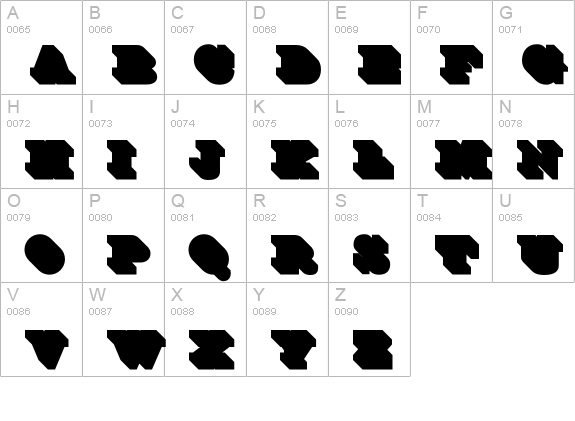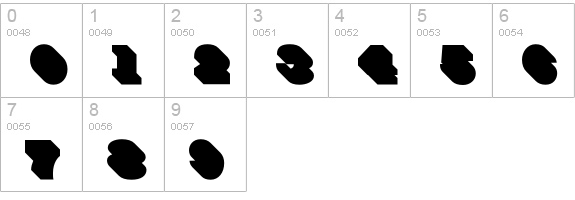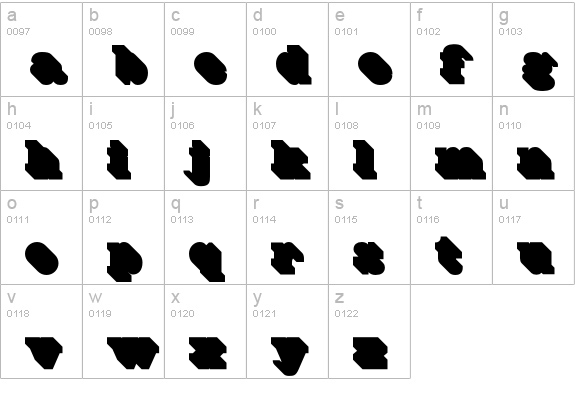
EgizianoClassic-ShadowOL Font Details
EgizianoClassic-ShadowOL font is a stunning typeface that combines the timeless elegance of Egyptian-inspired typography with a modern twist. Its classic and shadowed design creates a captivating visual effect, making it perfect for a wide range of creative projects. This font boasts a unique blend of sharp edges and intricate details, giving your text a distinct and eye-catching appearance. Whether you're designing a logo, crafting a poster, or creating a website, EgizianoClassic-ShadowOL font will add a touch of sophistication and style to your work. One of the best features of EgizianoClassic-ShadowOL font is that it is available for free download at FontsMarket.com. This means that you can easily access and use this remarkable font without having to worry about any licensing restrictions or fees. It's a fantastic opportunity for designers, students, and anyone in need of a high-quality font to enhance their projects. With its versatility and timeless appeal, EgizianoClassic-ShadowOL font is a must-have for any design arsenal. So, why wait? Head over to FontsMarket.com and grab your free download today. Let your creativity soar with this exceptional font and take your designs to the next level.